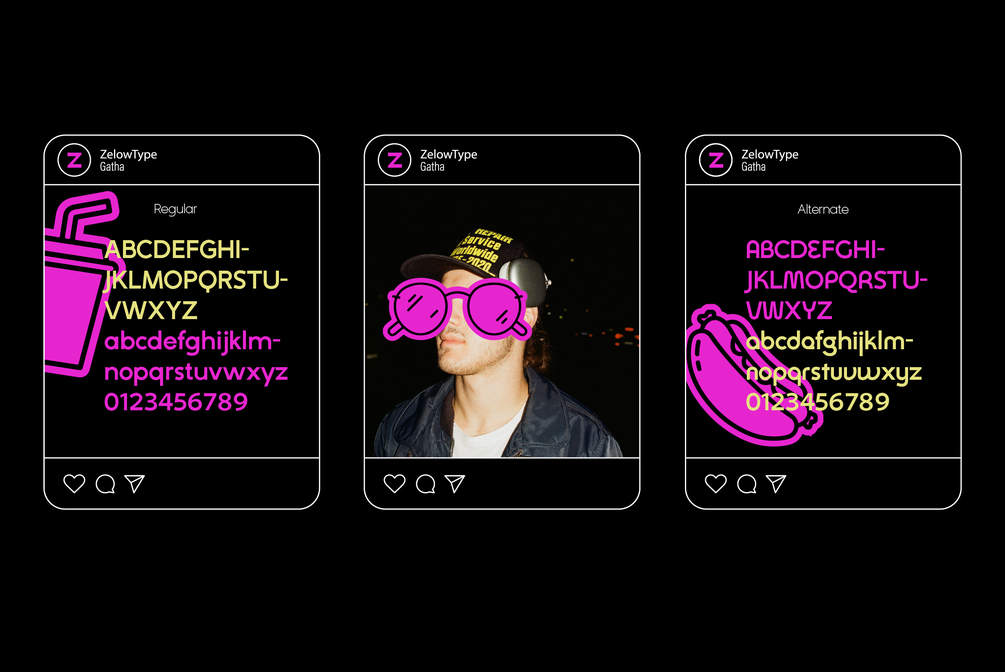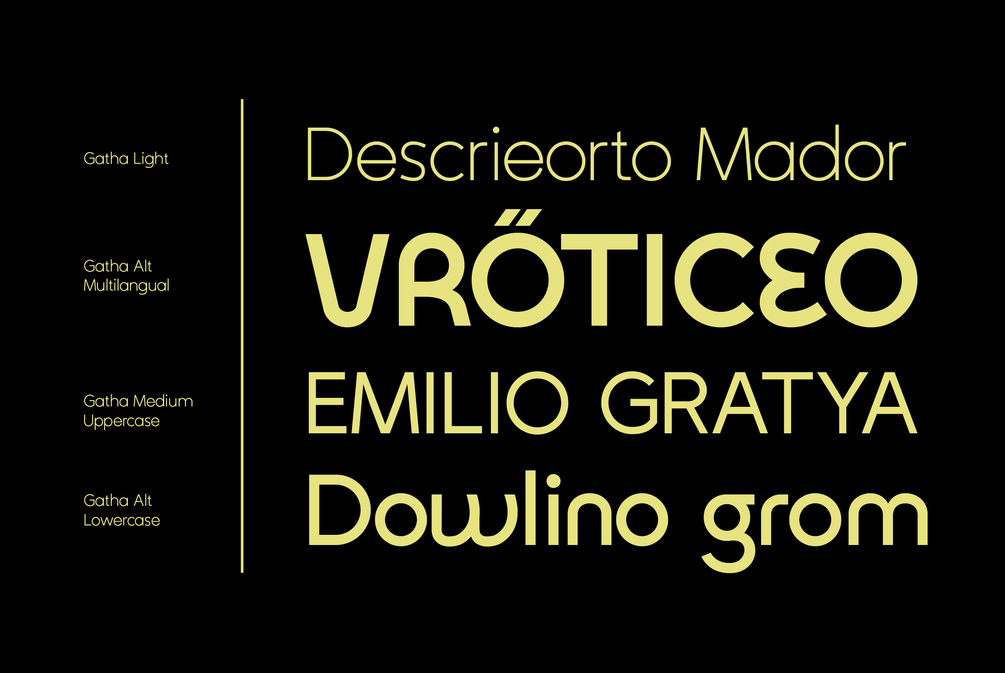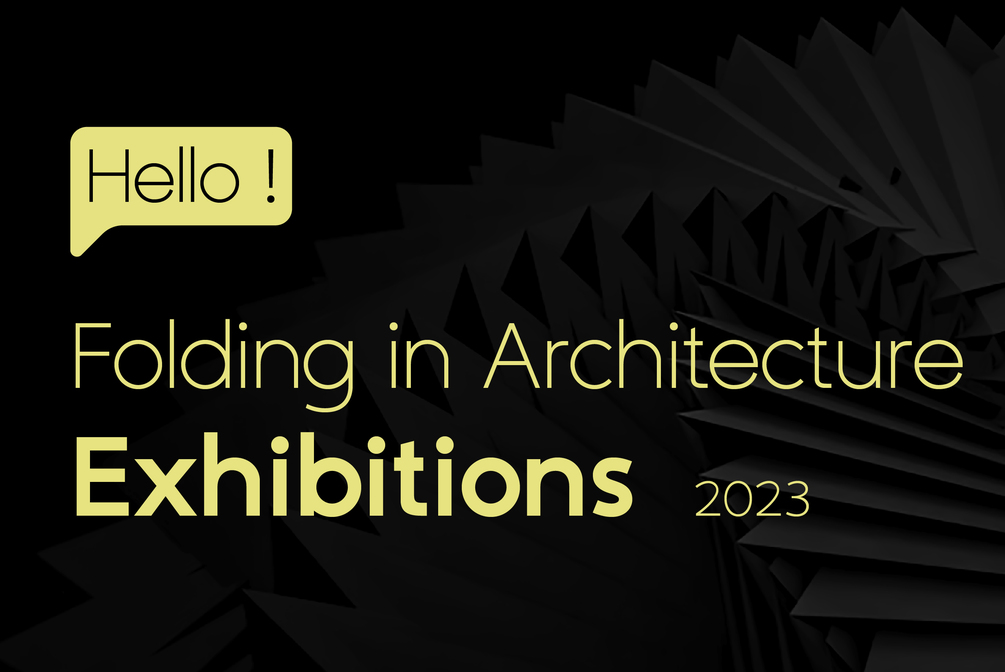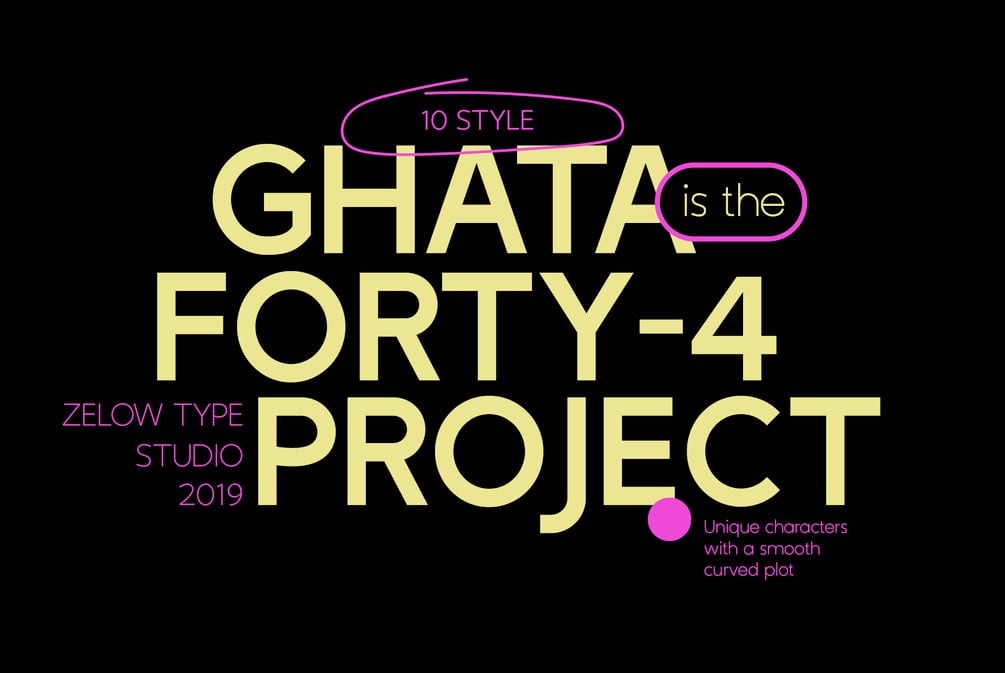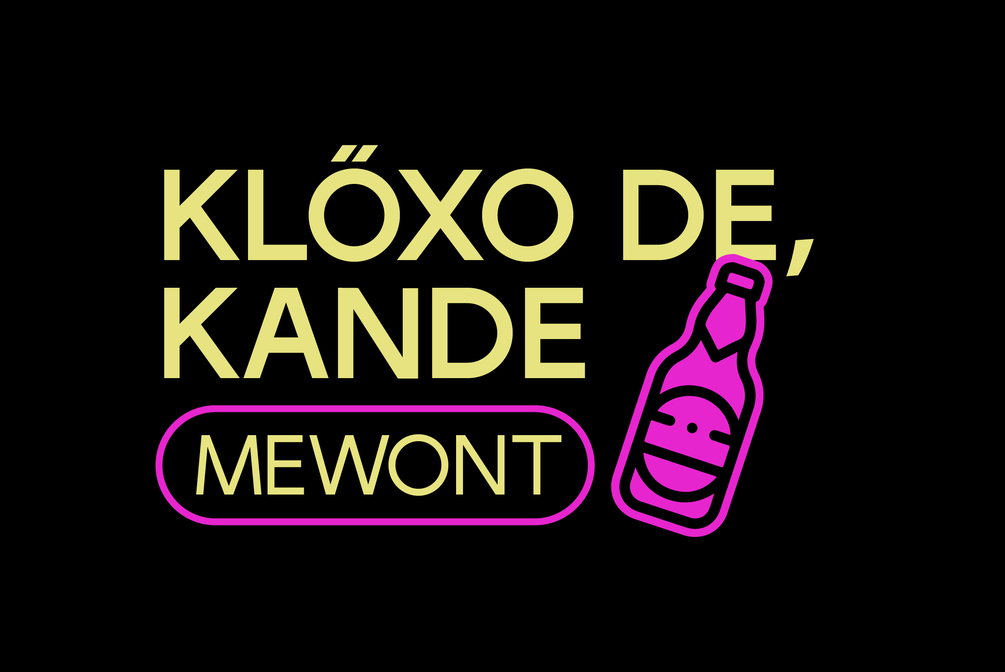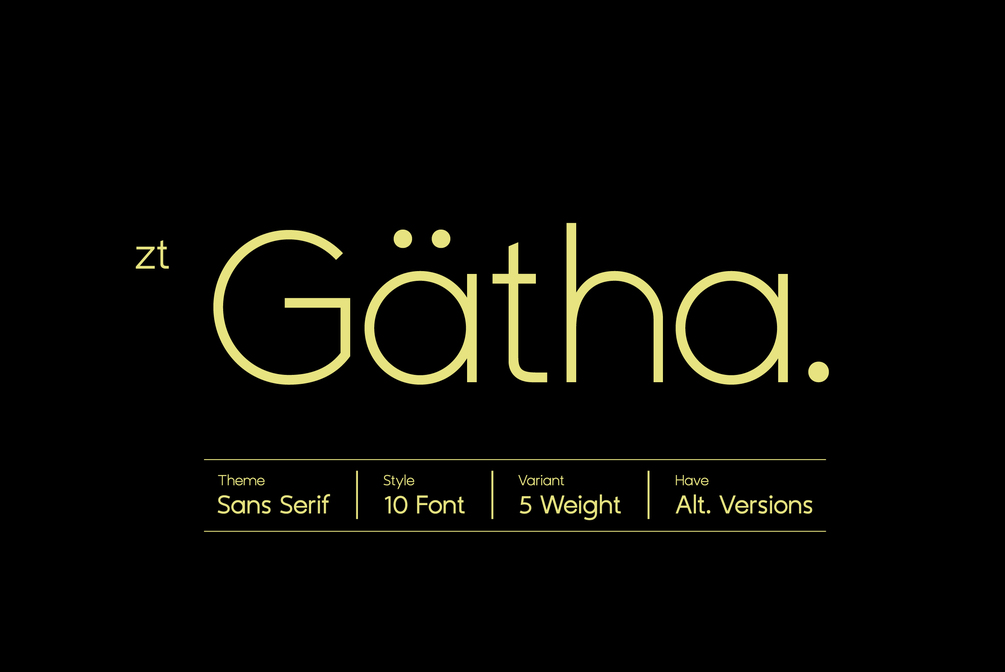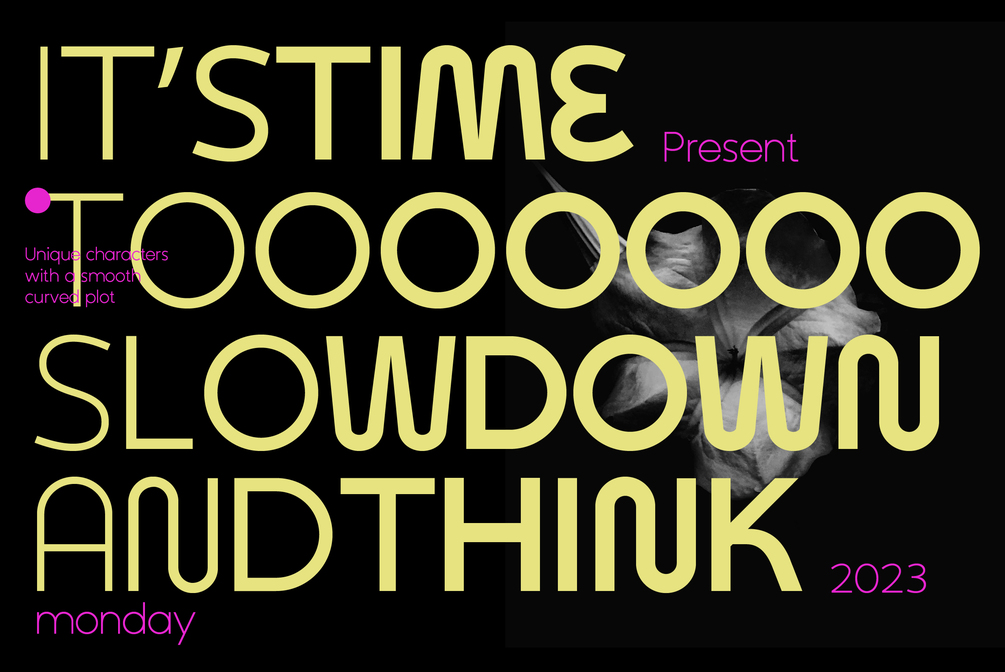
ZT Gatha
ZT Gatha is a continuation of the "Gatha Duo font family", which focuses only on more complete variations of sans serif, this font has two variants, one of which is a normal sans font and the other is unique in that it minimizes edges. of each letter produces a unique character with a smoothly curved groove.
ZT Gatha features 10 styles covering a complete set of beautiful upper and lower case letters, numbers, and various punctuation marks, providing a clean and realistic sans serif style with great versatility. With a lot of weight, this typeface can be used successfully in Magazines, Posters, Branding, Websites, etc.